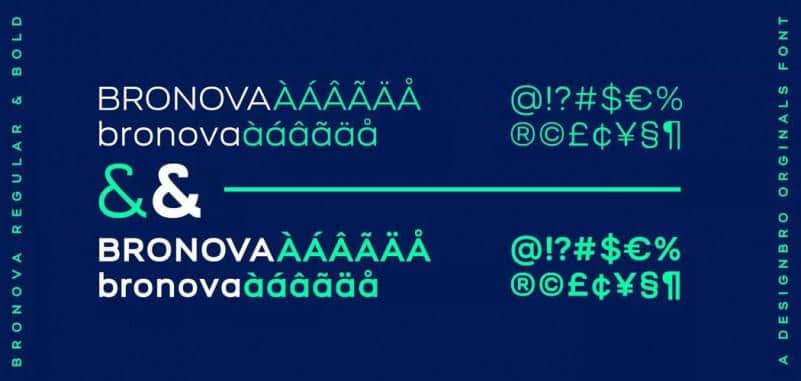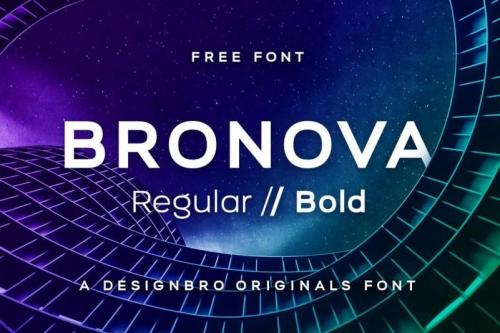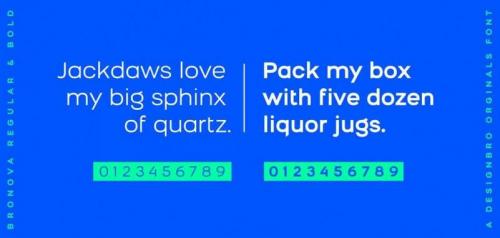
Bronova Sans Font a sans serif typeface with a minimalist classic feel, suitable for long texts or large headings with 2 style (Regular and Bold)!
It’s based on the ‘natural curve’ that can be drawn from the wrist. It’s a much smoother curve than the standard computer generated curve. Originals font and is based on the natural line that occurs when drawing a curve from the wrist.
The font includes 130 glyphs in 2 weights: regular and bold. The project has been licensed under a SIL Open Font License, making it open source and available to all.
This font can also be used for logo design, labels, book layouts, Posters, etc.
- Designer: DesignBro.com Ltd